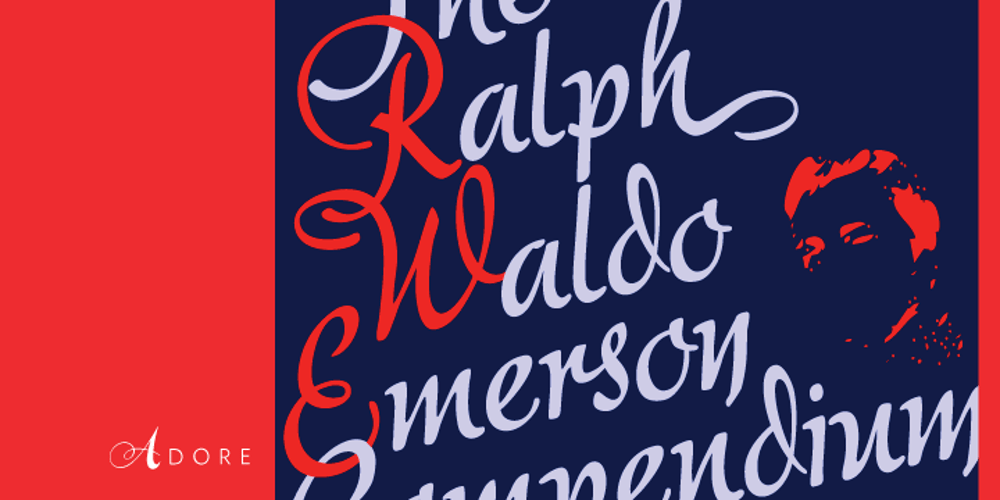
Adore Font Family was designed by Rebecca Alaccari and published by Canada Type. Adore contains 1 styles and family package options. In 1939 the Stephenson Blake Company bought a very popular script called Undine Ronde and began marketing under the name Amanda Ronde. Although Undine/Amanda was quite popular and can be seen in many advertisements from the 1930s and 1940s, there seems to be no surviving record stating the original foundry or designer. We thought that six and half decades of dust layers over the once-popular typeface were enough, so here and now you have its complete and expanded digital incarnation, Adore. It is quite easy to see why this typeface was popular. A round script with graceful meaty curves is rarely found and can be used in plenty of applications. Wedding paraphernalia, chapter titles, posters, poetry, book covers, religious literature… you name it, Adore can fit it. Aside from its totality being unmatched by currently available designs, Adore also possesses some of the most unique and imaginative letter shapes. The narrow loops on the B, P and R, the minuscule-like Z, the looped b and d, the descending h… all these shapes contribute to a breathtaking and adorable calligraphic work unlike any other. The original design came in a basic alphabet, but we have updated it for current digital technologies, and expanded it to include plenty of alternates and ligatures, as well as some ornaments. The Postscript Type 1 and True Type versions come in two fonts, the second containing the alternates and extras, while the Open Type version is a single font containing all the alternates and extras in conveniently programmed features, easily accessible at the push of a button in OpenType-supporting software. We also encourage you to take a look at Typodermic’s Mecheria font, which is further experimentation with the same letter forms, resulting in a quirky, friendly, curly, angular gothic-like creature.